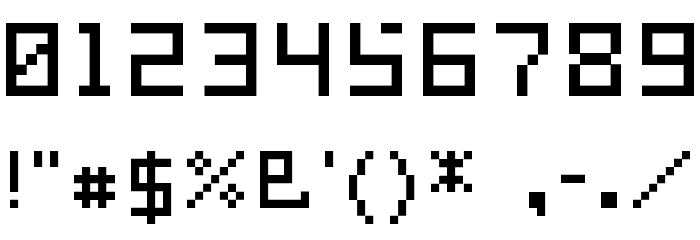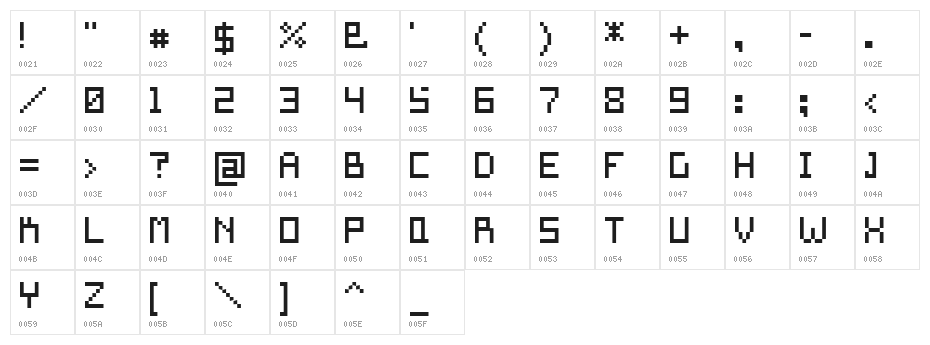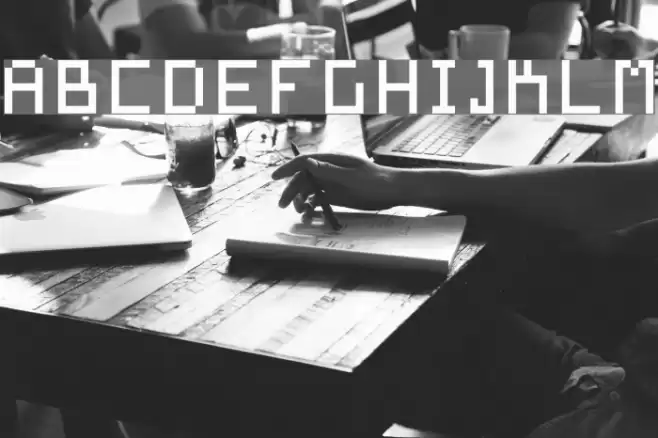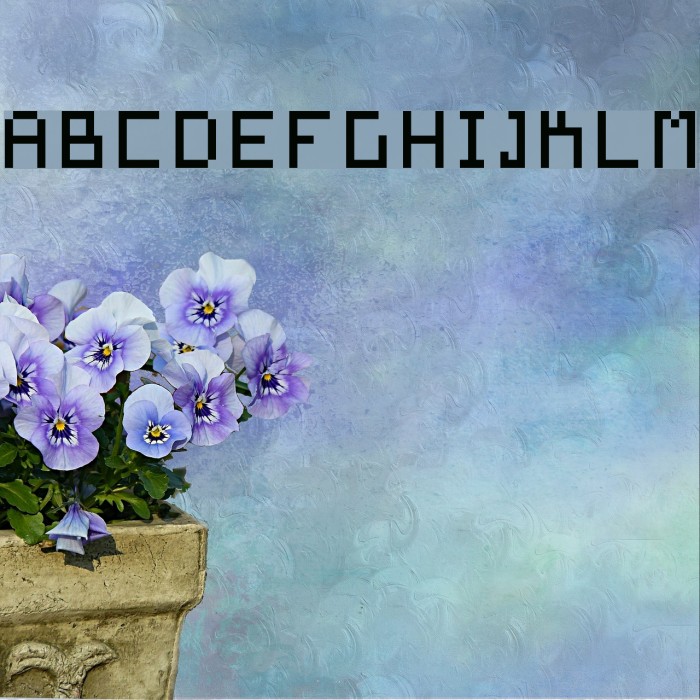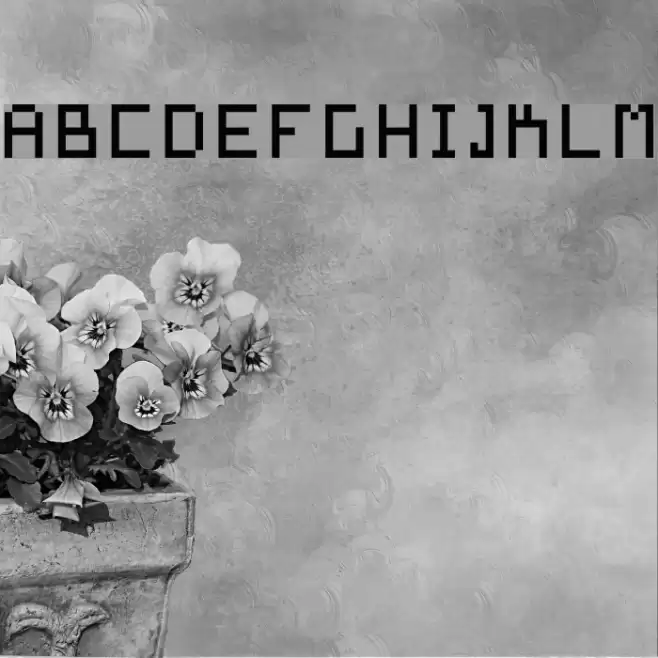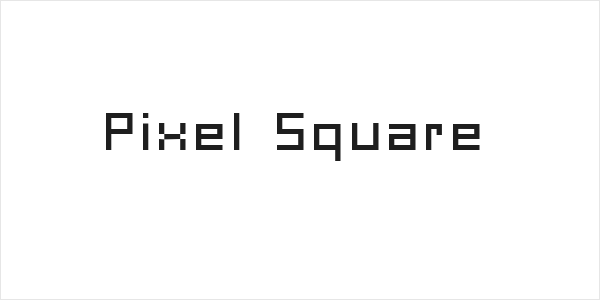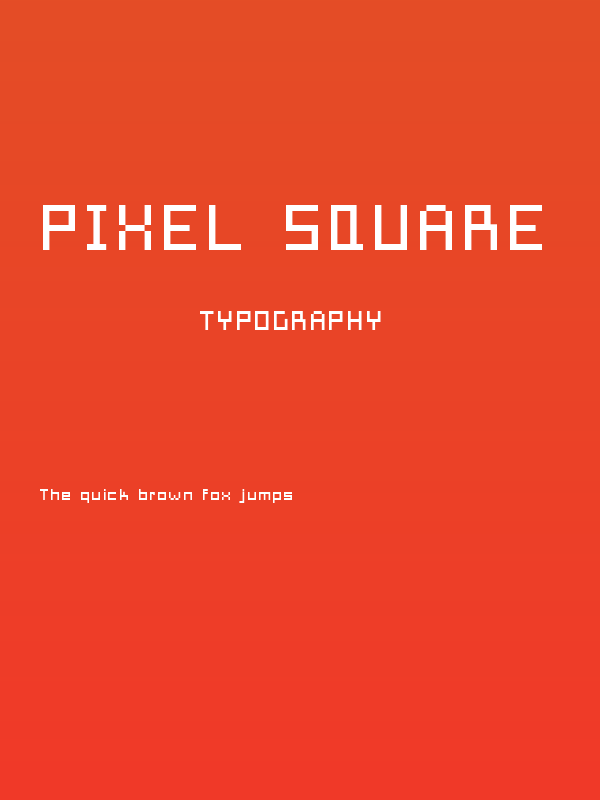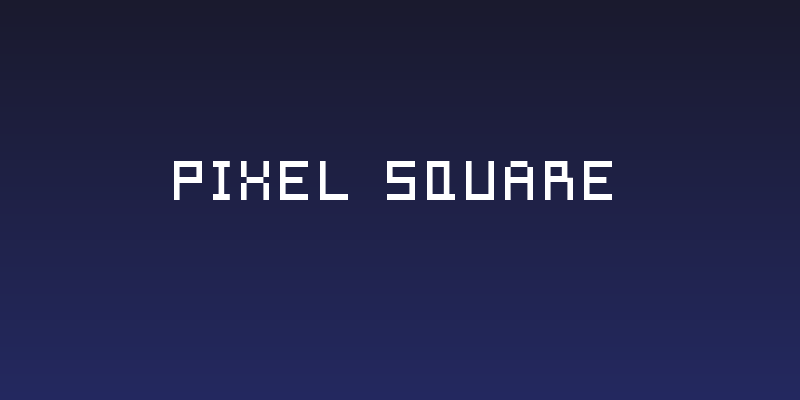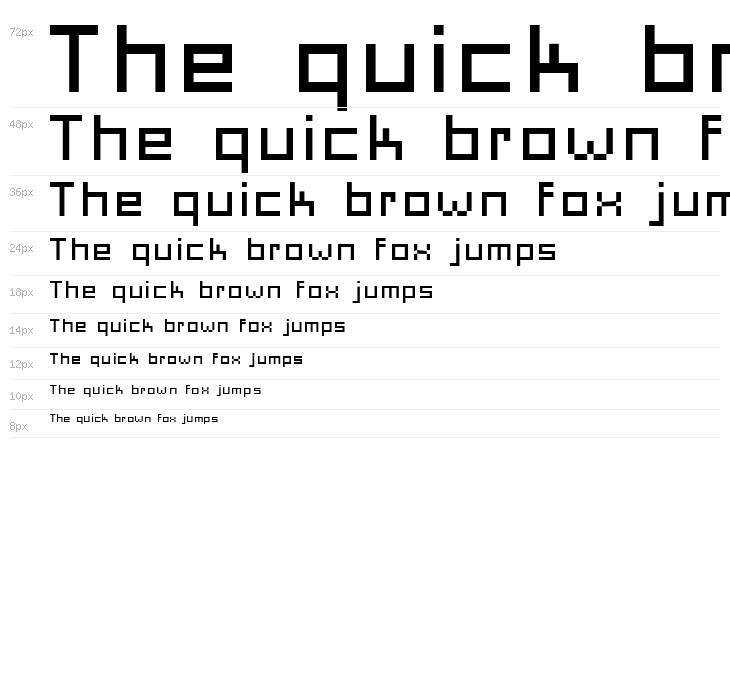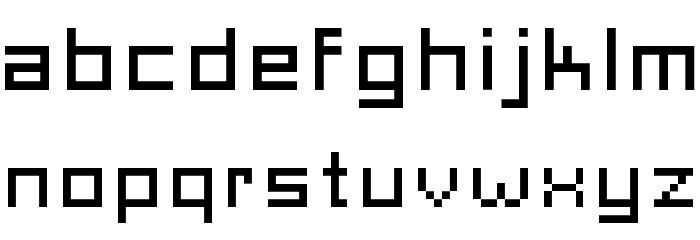
Pixel Square Font
Pixel Square Description
This font features a distinct pixelated design, reminiscent of early digital displays and retro video games. Each character is constructed with a grid-like precision, giving it a blocky, geometric appearance. The uniformity in height and width across letters and numbers creates a cohesive and structured look. The uppercase and lowercase letters maintain a consistent style, with minimal differentiation in size, enhancing the font's pixel art aesthetic. The numerals and special characters follow the same design principles, ensuring readability and a seamless integration with the alphabetic characters. This font's nostalgic charm and digital feel make it ideal for projects that aim to evoke a sense of classic computing or gaming.
| Use Case | Headlines, Logos, Digital Art |
| Proposed Projects | Ideal for video game design, digital art projects, retro-themed websites, and tech-related branding. |